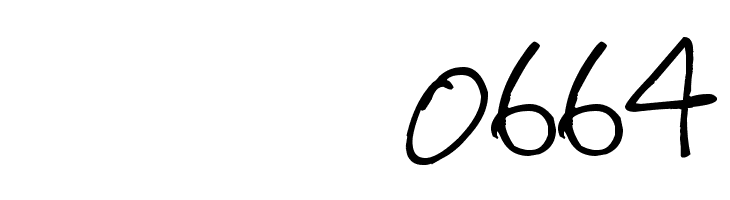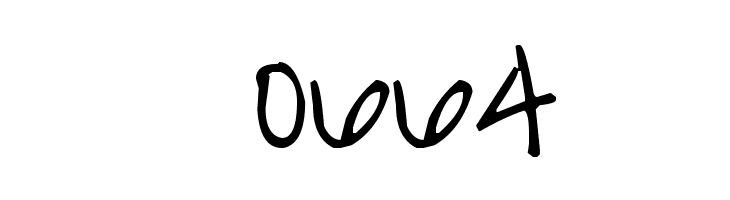
• Pea Mariella
A playful, casual handwritten font with loose, flowing strokes.
• Pea Marsha
A playful, casual handwritten font with irregular strokes and a dynamic slant.
• Pea Martha
A playful, handwritten font with tall, narrow characters and whimsical decorative elements.
• Pea Mary
A playful, bold handwritten font with a casual and friendly style.
• Pea Mary-Katie
A playful, casual handwritten font with irregular, whimsical strokes.
• Pea Mary-Katie Skinny
A playful, handwritten font with a casual and informal style.
• Pea Matt & Kari
A playful, casual handwritten font with dynamic strokes.
• Pea Mee-Mee
A playful, sketch-like handwritten font with dynamic strokes.
• Pea Megan
A playful, handwritten font with a casual and dynamic style.
• Pea Megeletto
A playful, casual handwritten font with irregular strokes and a lively appearance.
• Pea Mel's In Between
A casual, handwritten font with bold, dynamic strokes and a playful style.
• Pea Melanie
A playful, casual handwritten font with irregular strokes and a friendly appearance.
• Pea Meli
A playful, handwritten font with a casual and friendly appearance.
• Pea Melissa
A casual, playful handwritten font with uneven strokes.
• Pea MEllybO0
A playful, casual handwritten font with a lively and informal style.
• Pea Melody Shay
A playful, casual handwritten font with fluid, dynamic strokes.
• Pea Michelle
A casual, handwritten font with a playful and informal style.
• Pea Mimi
A playful, casual handwritten font with uneven strokes and a friendly appearance.
• Pea Mindy
A playful, casual handwritten font with flowing strokes and a whimsical feel.
• Pea Minjee
A playful, handwritten font with fluid and dynamic strokes.
• Pea Minna
A playful, casual handwritten font with fluid, irregular strokes.